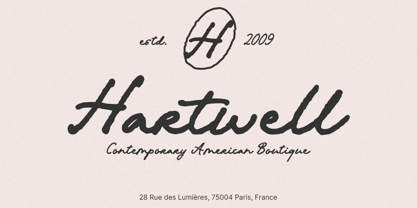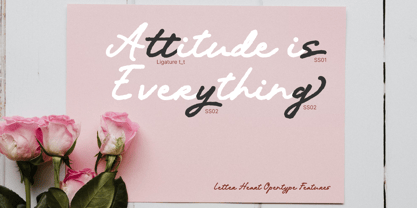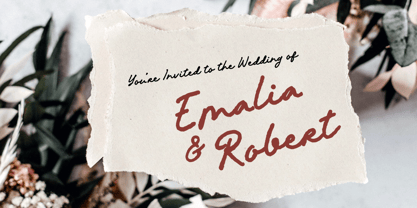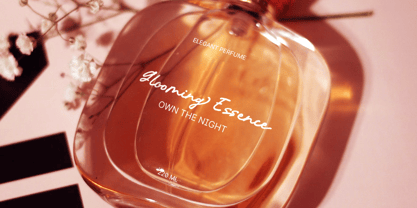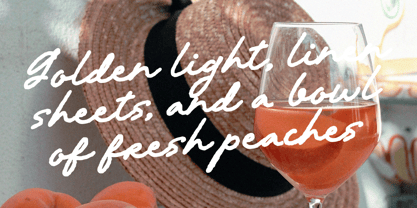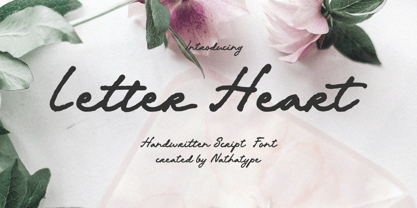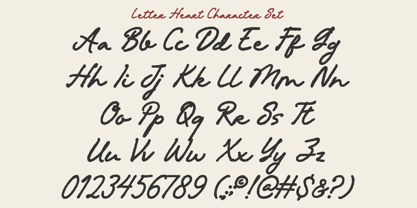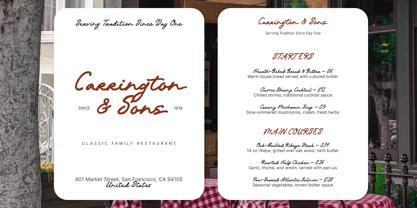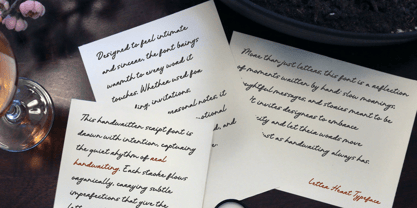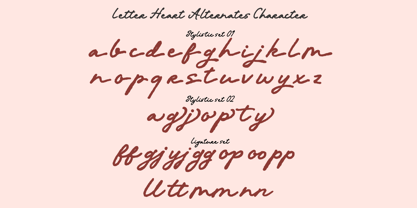
Letter Heart
by Nathatype
The Letter Heart Font Family was designed by Donis Miftahudin and published by Nathatype. Letter Heart contains 1 styles. More about this family
Letter Heart is a beautifully expressive handwritten font. Blending natural cursive flow with a slightly distressed finish, this font captures the emotion of authentic handwriting while adding a raw, artistic edge. If you're looking for a handwritten script font that feels personal, heartfelt, and a little imperfect in the best way, Letter Heart is the perfect choice. In addition, enjoy the features here. Features: Ligatures Stylistic Sets Multilingual Supports PUA Encoded Numerals and Punctuations Letter Heart fits in logos, invitations, quotes, branding, posters, and many more designs. Find out more ways to use this font by taking a look at the font preview. Thanks for purchasing our fonts. Hopefully, you have a great time using our font. Feel free to contact us anytime for further information or when you have trouble with the font. Thanks a lot and happy designing.
Designers: Donis Miftahudin
Foundry: Nathatype